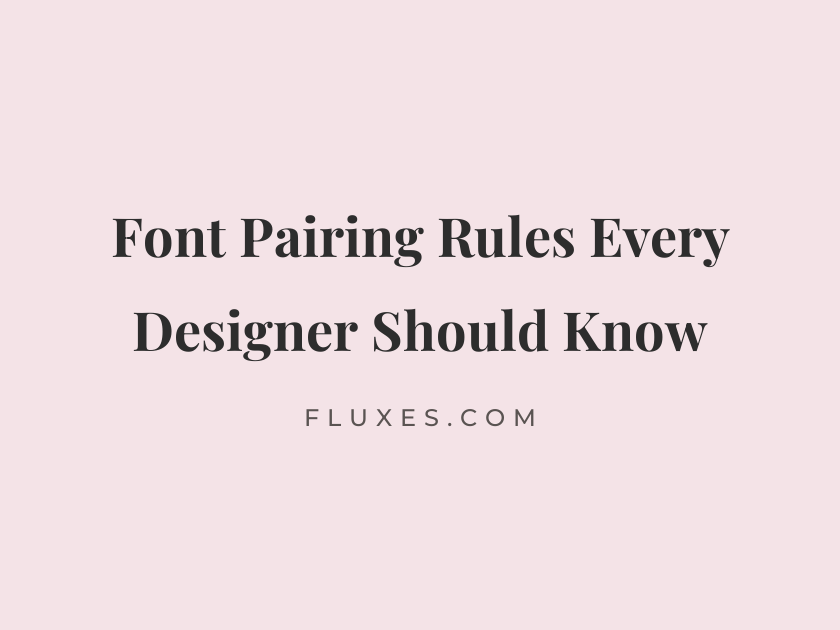
40 Font Pairing Rules Every Designer Should Know
Good font pairing rests on a handful of repeatable principles: contrast between a display face and a text face, shared proportions or a common era, compatible x-heights, and enough restraint that the reading experience never fights the headline above it. The combinations below apply those font pairing rules across a wide range of moods, from editorial and literary to technical and playful, so you can find a starting point for nearly any project built from free Google Fonts pairings.
Playfair Display + Noto Sans
Elegant Headlines That Command Attention
High-contrast Playfair Display brings editorial drama to headlines, while Noto Sans’s even, functional letterforms keep long paragraphs easy to read. The pairing suits magazine layouts, invitations, and any project that wants elegance without sacrificing legibility.
Merriweather + Open Sans
Built for Comfortable Reading
Merriweather was drawn specifically for screens, so its sturdy serifs hold up at small sizes and pair naturally with Open Sans, a humanist sans built for the same purpose. This is a dependable choice for blogs and content-heavy websites.
Montserrat + Lora
Modern Headlines With Warmth
Montserrat’s geometric, uppercase-friendly forms give headlines a confident voice, and Lora’s slight calligraphic flavor keeps body text warm rather than cold. Works well for lifestyle brands and portfolio sites.
Oswald + Lato
Bold Headlines in Tight Spaces
Oswald is a condensed, poster-inspired display face, so pairing it with the open, neutral proportions of Lato prevents a page from feeling cramped. Good for headlines in news sites or product pages where space is limited.
Raleway + PT Serif
Refined, Airy Display Type
Raleway’s thin, elegant weights look best big, and PT Serif’s sturdier strokes and generous x-height make it comfortable at text sizes. The combination reads as refined without becoming fragile.
Poppins + Karla
Friendly, Geometric Branding
Both fonts share a geometric, rounded personality, so headlines and body text feel related even though they are built for different jobs. Suits startups and app marketing pages after a contemporary tone.
Abril Fatface + Poppins
Striking Fashion-Forward Headlines
Abril Fatface’s extreme contrast and heavy serifs make a striking display face, and the plain geometry of Poppins underneath keeps the page grounded. A favorite for fashion and beauty branding.
Libre Baskerville + Work Sans
Old-Style Serifs, Screen Ready
Libre Baskerville was redrawn from a classic old-style serif specifically for on-screen reading, and Work Sans matches its restrained, unfussy character. Reliable for long-form editorial content.
Cormorant Garamond + Nunito Sans
Delicate Type for Boutique Brands
Cormorant Garamond carries the delicate, high-contrast look of classic Garamond types and reads best used large; Nunito Sans supplies a soft body face that never competes for attention. Elegant for invitations and boutique brands.
Bitter + Nunito
Personality in a Screen Slab
Bitter is a slab serif engineered for screens, giving headings weight and character, while Nunito’s rounded terminals keep the body copy approachable. A comfortable pairing for blogs with a personal voice.
Archivo Black + Archivo
One Family, Total Cohesion
Using two weights from the same superfamily guarantees compatible proportions and spacing, so Archivo Black headlines sit naturally above Archivo body text. This is one of the safest pairing strategies available on Google Fonts.
Fraunces + Inter
Handmade Character, Clean Support
Fraunces brings a soft, slightly wonky, almost handmade quality to display type, and Inter’s clean, screen-optimized letterforms balance that character with neutrality. Common in modern editorial and design-studio sites.
DM Serif Display + DM Sans
A Pair Built to Match
Designed as a matched set, DM Serif Display and DM Sans share proportions and a similar reference point, so they align effortlessly on the page. Ideal when you want coherence without extra research.
A Few Rules Worth Remembering
Look for contrast first: a display face with personality needs a text face that stays out of the way, and vice versa. When in doubt, pairing two members of the same type superfamily removes most of the risk.
Match the mood before matching the shapes; a classical serif rarely feels right next to a playful, rounded sans, no matter how well the metrics line up.
Test every pairing at real text sizes, not just in large mockups, since some display faces lose their charm the moment they shrink.